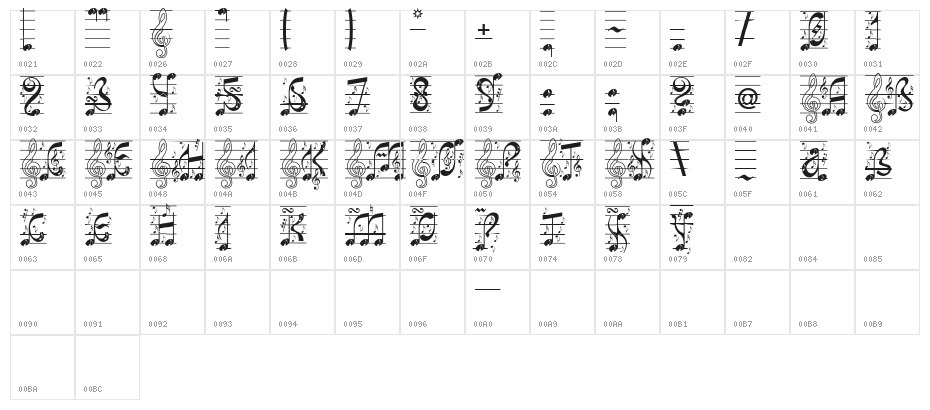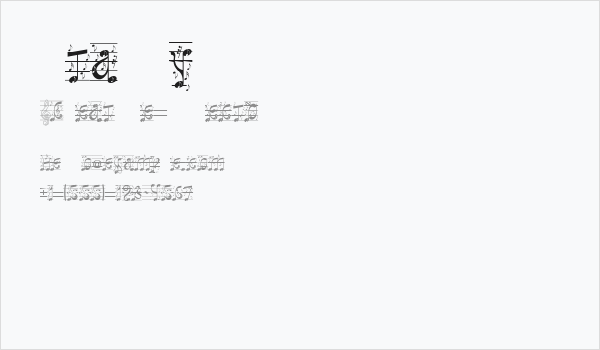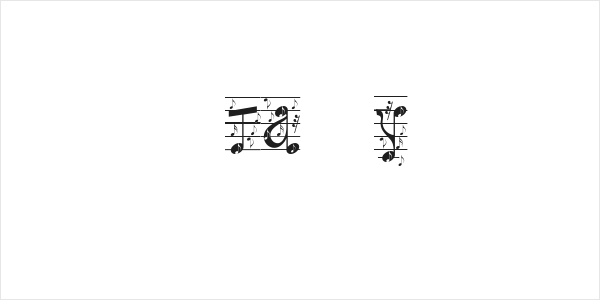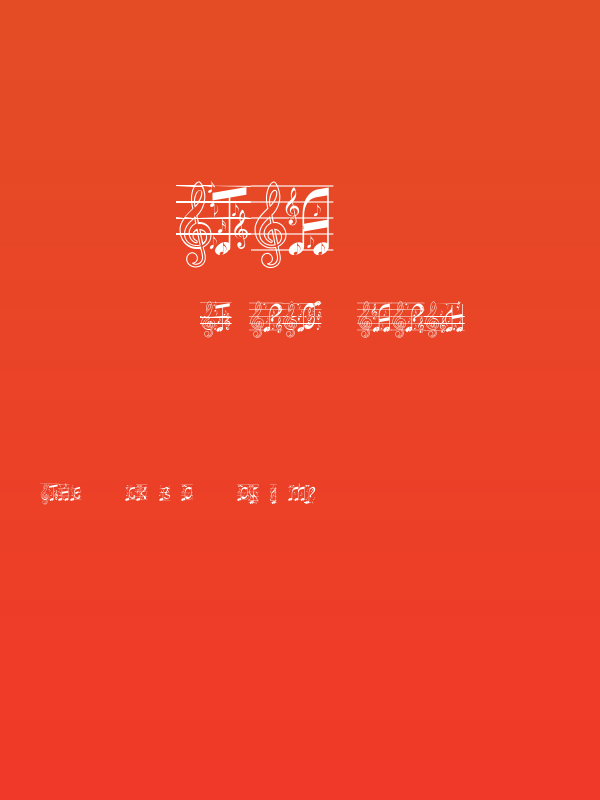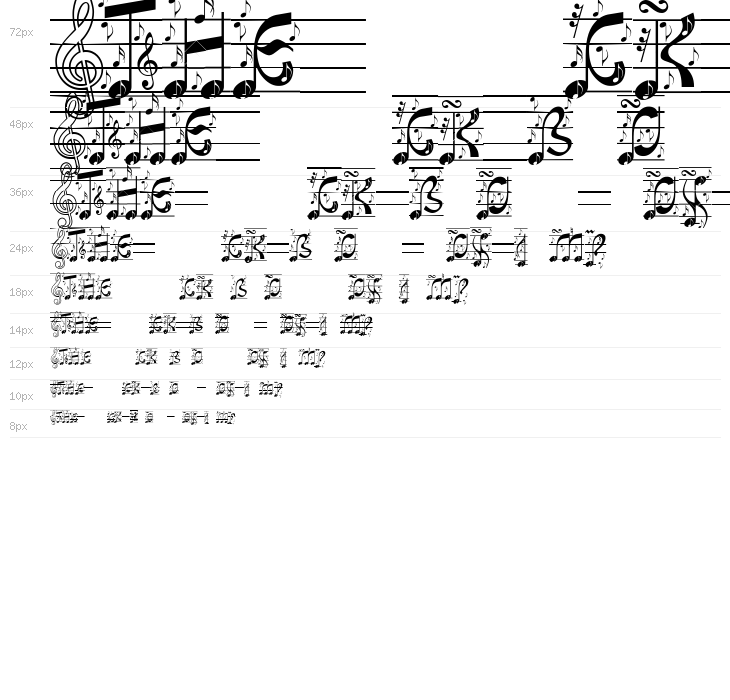
Staffy Font
Staffy Description
This font is a unique and artistic blend of musical notation and typography, where each character is intricately designed to incorporate musical elements such as notes and clefs. The letters and numbers are creatively intertwined with musical symbols, creating a visually striking and decorative appearance. This font is perfect for projects that aim to combine music and design, offering a playful yet sophisticated look. The characters are bold and have a high contrast in stroke thickness, making them stand out prominently. The overall style is decorative and thematic, ideal for music-related themes.
| Use Case | Logos, Headlines, Thematic Designs |
| Proposed Projects | Ideal for music-themed posters, album covers, educational materials, and creative design projects. |